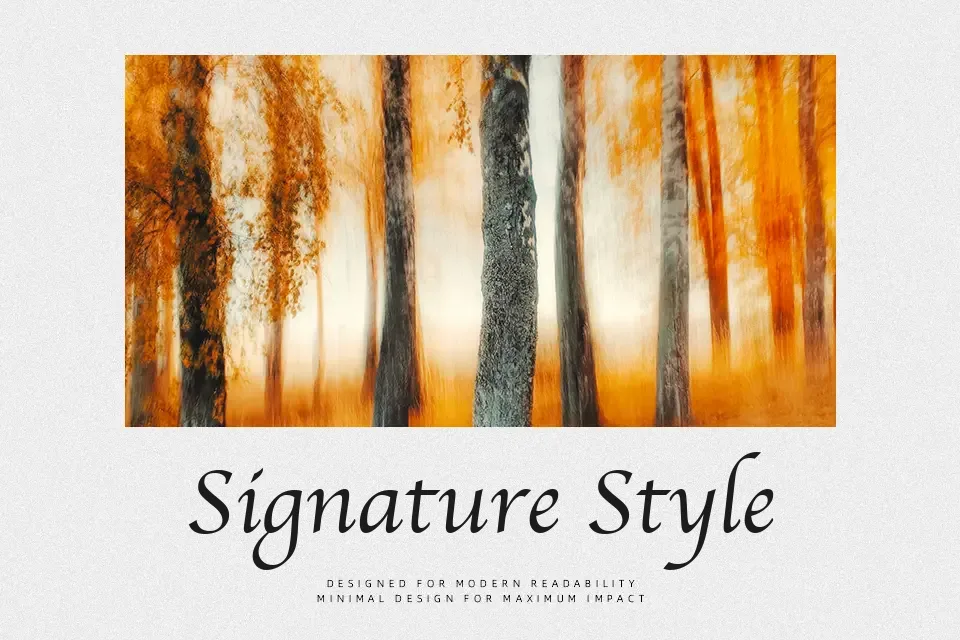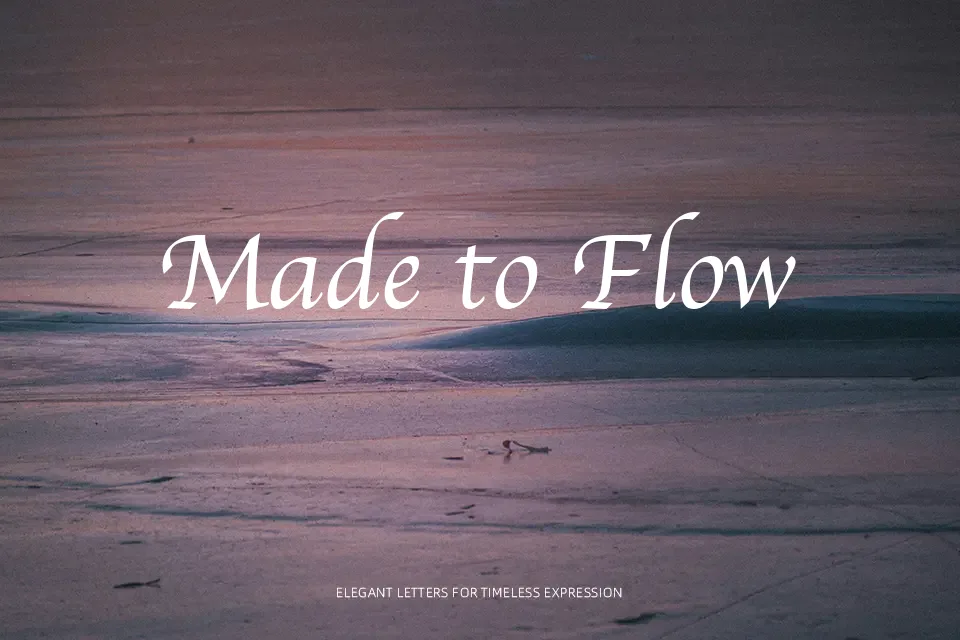
Apple Chancery Font
Inspired by classical English handwriting and Renaissance manuscripts, Apple Chancery Font brings a refined, historical elegance to digital typography. Created in 1993 by Kris Holmes and Charles Bigelow for Apple, this script typeface features beautifully varied strokes, elegant swashes, and a distinct calligraphic rhythm. The graceful letterforms naturally connect and flow, providing a deeply human, artisanal quality that feels highly sophisticated and personal.
Because of its ornate and formal nature, it performs wonderfully on wedding invitations, graduation certificates, and high-end restaurant menus where a touch of traditional luxury is required. Conversely, you should avoid using it for long paragraphs of website body text; the decorative swashes and varying stroke weights will quickly become difficult to read and visually overwhelming in dense blocks. Compared to simple cursive fonts, it offers a much more authentic, historical presence.
– formal wedding invitations
– academic certificates
– high-end restaurant menus
– elegant event branding
– website body paragraphs
– complex data tables
– small mobile interfaces
Perfect for invitation, restaurant, and signature, with a artistic and calligraphy style.